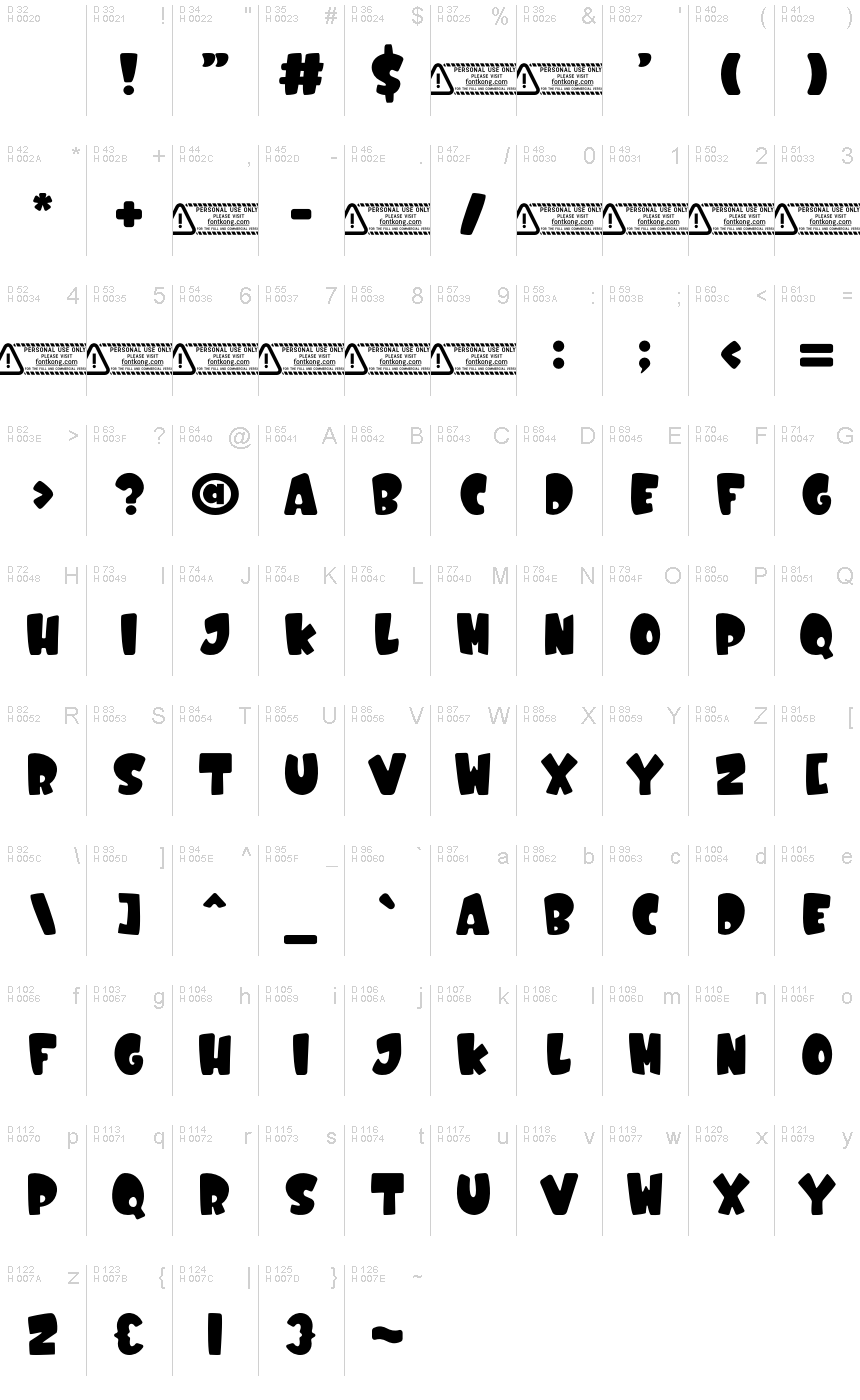
Play Factory font by Kong Font captures the imagination with its bold, cartoon-style display. Its playful and quirky design stands out, making it perfect for projects that demand attention and creativity. The exaggerated shapes and lively forms add a delightful touch, evoking a sense of fun and whimsy.
Ideal for children's books, posters, or any creative endeavor requiring an energetic vibe, Play Factory font is versatile yet distinct. Free to download, this font offers designers an accessible way to enhance their work with unique flair.
Embrace the dynamic appeal of the Play Factory font for your next project and let your imagination run wild. This free font download is a valuable addition to any designer's toolkit, promising both visual impact and creative inspiration.